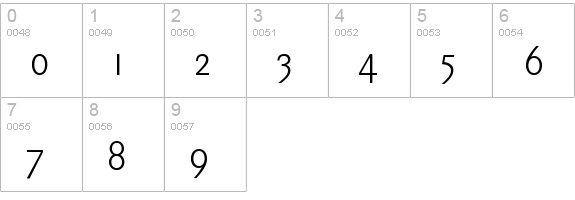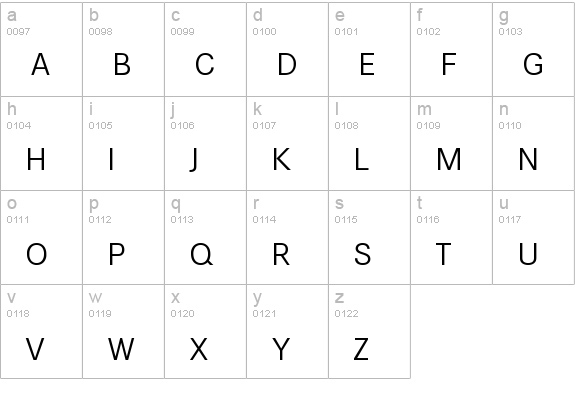
Corporate S Expert Light Font Details
Corporate S Expert Light is a refined, elegant variant in the Corporate typeface family \xE2\x80\x94 well suited to elegant body text, refined sub-headings, and luxury branding.
Introducing Corporate S Expert Light font, a sleek and modern typeface designed for corporate and professional use. With its clean lines and elegant curves, this font exudes sophistication and professionalism, making it perfect for a wide range of design projects. Corporate S Expert Light font is versatile and easy to read, making it ideal for use in various applications such as branding, logos, business cards, websites, and more. Its light weight adds a touch of subtlety and refinement to any design, while still maintaining a strong presence. Best of all, Corporate S Expert Light font is available for free download at FontsMarket.com. Whether you're a designer looking to enhance your projects or a business owner seeking a polished look for your brand, this font is a valuable addition to your toolkit. Download now and elevate your designs with the timeless elegance of Corporate S Expert Light font.